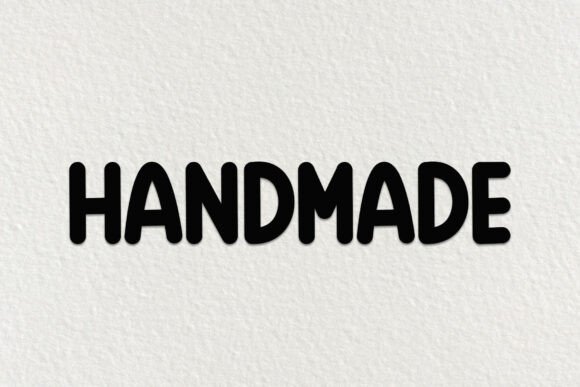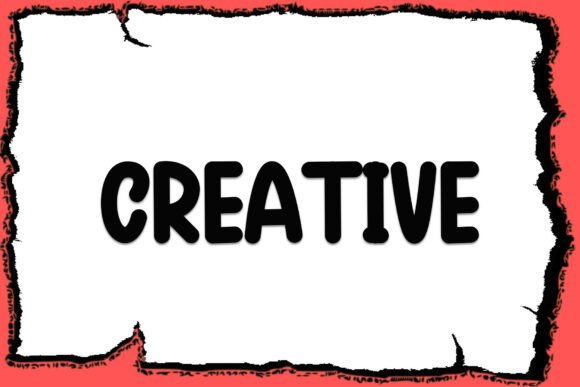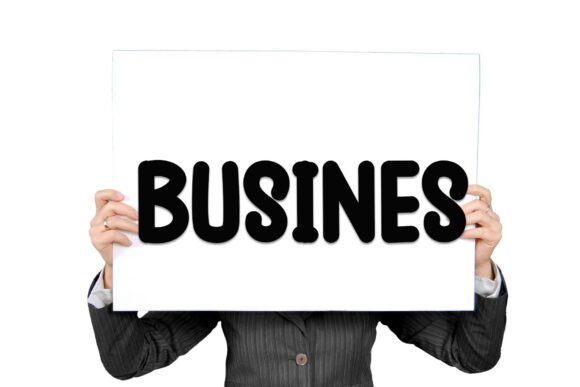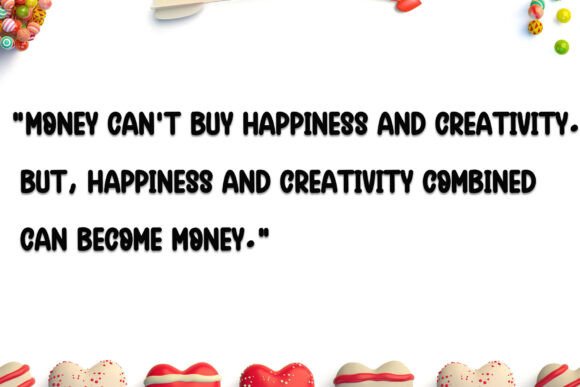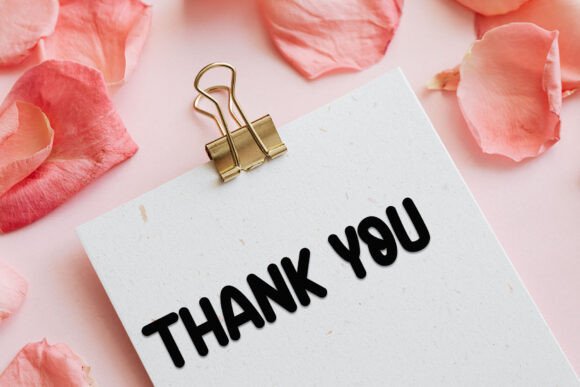
Introducing Graphic Font: The Ultimate Display Font for Creative Expression
Are you tired of using the same old fonts for your designs? Look no further than Graphic Font, a fun and expressive display font that’s sure to make your creative ideas stand out. With its bold, rounded letters and friendly personality, Graphic Font is perfect for eye-catching headlines, kids-themed projects, packaging, branding, and more.
The Perfect Font for Creative Projects
Graphic Font is designed to bring a playful energy to your designs. Its bold, rounded letters are sure to grab attention and make your message heard. Whether you’re designing for print or digital, Graphic Font is the perfect choice for any project that needs a little extra personality. From kids-themed party invitations to packaging and branding, Graphic Font is sure to make your designs pop.
Key Features of Graphic Font
- Bold and Rounded Letters: Graphic Font features bold, rounded letters that are sure to grab attention.
- Fun and Expressive: With its friendly personality, Graphic Font is perfect for designs that need a little extra personality.
- Perfect for Kids-Themed Projects: Graphic Font is a great choice for kids-themed projects, including party invitations, children’s books, and more.
- Versatile: Graphic Font can be used for a variety of design projects, including packaging, branding, and more.
Why Choose Graphic Font?
There are many fonts to choose from, but Graphic Font stands out from the rest. Here are just a few reasons why:
- Unique and Expressive: Graphic Font is a unique and expressive font that’s sure to make your designs stand out.
- Easy to Read: Despite its bold and playful design, Graphic Font is easy to read, making it perfect for headlines and titles.
- High-Quality Design: Graphic Font is designed with high-quality craftsmanship in mind, ensuring that your designs look professional and polished.
How to Use Graphic Font in Your Designs
Graphic Font is easy to use in a variety of design projects. Here are a few ideas to get you started:
- Kids-Themed Party Invitations: Use Graphic Font to create fun and playful party invitations that kids will love.
- Children’s Books: Graphic Font is a great choice for children’s books, adding a playful touch to your story.
- Packaging and Branding: Use Graphic Font to add a playful touch to your packaging and branding, making your products stand out on store shelves.
- Digital Designs: Graphic Font can be used in digital designs, including social media graphics, blog posts, and more.
Tips and Tricks for Using Graphic Font
Here are a few tips and tricks for using Graphic Font in your designs:
- Use it as a Headline Font: Graphic Font is perfect for headlines and titles, adding a bold and playful touch to your design.
- Experiment with Colors: Graphic Font looks great in a variety of colors, so don’t be afraid to experiment and find the perfect hue for your design.
- Pair it with Other Fonts: Graphic Font can be paired with other fonts to create a unique and interesting design.
Graphic Font is a fun and expressive display font that’s perfect for designers and crafters looking to add a playful touch to their designs. With its bold, rounded letters and friendly personality, Graphic Font is sure to make your creative ideas stand out. Whether you’re designing for print or digital, Graphic Font is a great choice for any project that needs a little extra personality.